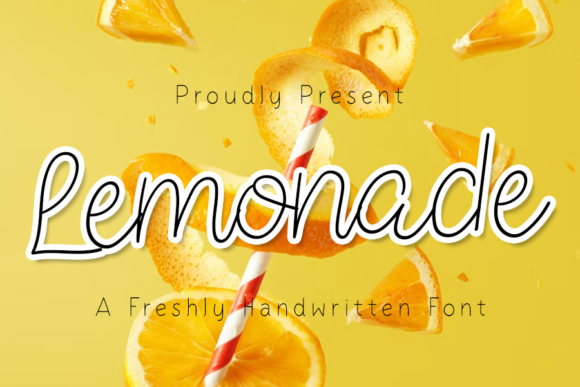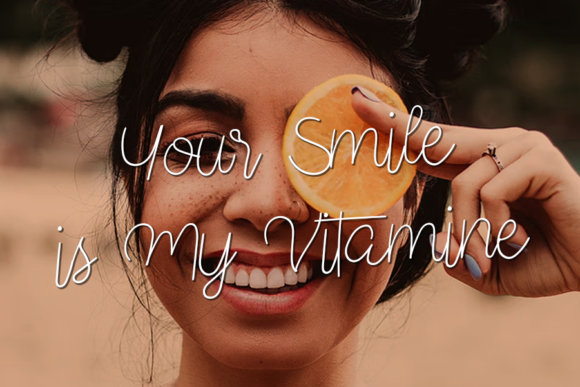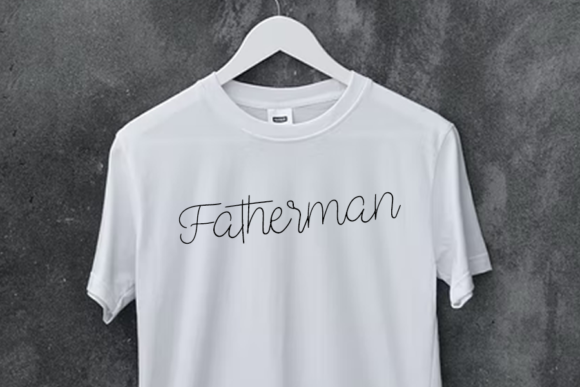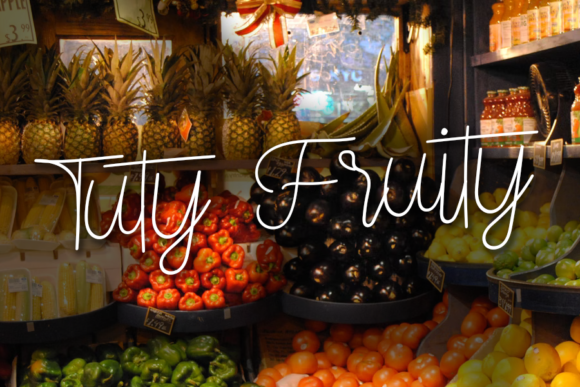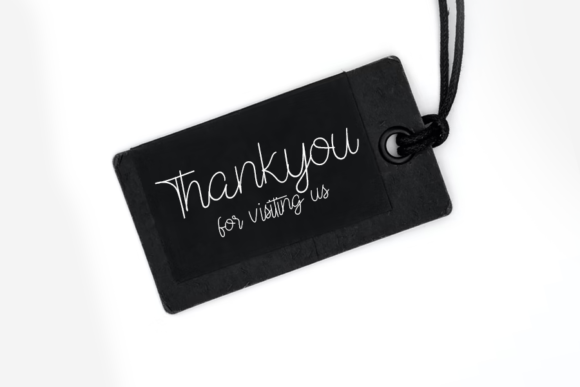
Lemonade Font
Lemonade stands out as an incredibly beautiful and versatile script font, making it the optimal choice for crafting eye-catching logos, establishing memorable branding, and highlighting impactful quotes. Each letter in Lemonade carries a unique and stunning touch that breathes life into your design, elevating it to new heights.
The beauty of Lemonade is immediately apparent in its carefully crafted script design. The fluid strokes and intricate details of each letter contribute to an aesthetic that is not only visually pleasing but also possesses a distinct character. This font serves as a powerful tool for designers looking to create designs that captivate and leave a lasting impression.
The versatility of Lemonade allows it to shine in various design contexts. Whether you’re working on logos that require a sophisticated and elegant touch, crafting a brand identity that stands out, or incorporating impactful quotes into your designs, this font seamlessly adapts to the creative vision at hand.
Incorporating Lemonade into your design toolkit brings a level of beauty and sophistication that enhances the overall visual appeal of your projects. Its versatility and unique aesthetic ensure that every letter contributes to making your design come alive with a touch of elegance and style.
In conclusion, Lemonade transcends being just a font; it’s a powerful and visually stunning design element that transforms your logos, branding, and quotes into captivating and memorable creations. Let Lemonade be the choice that breathes life into your designs, leaving a lasting impression with its beautiful and versatile script.